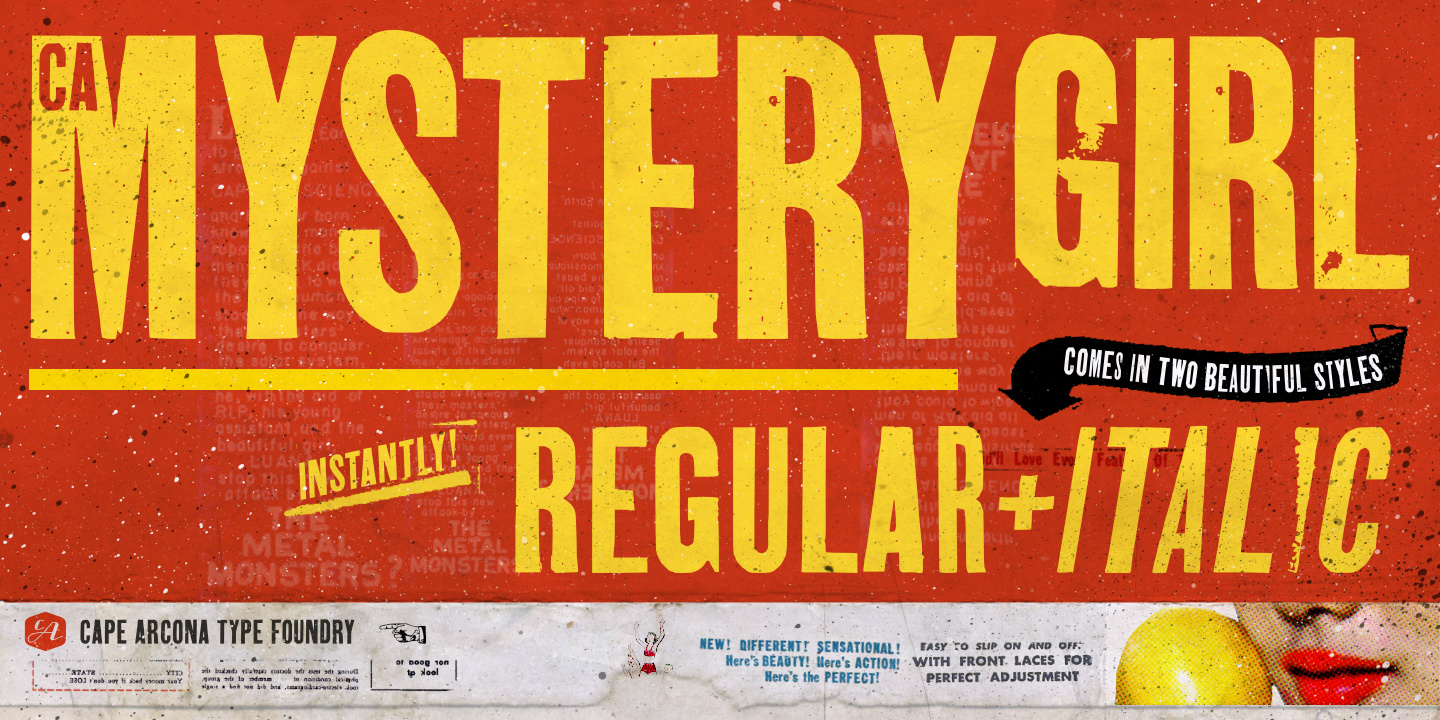
CA Mystery Girl Font Free Download is a playful and retro-inspired typeface that captures the charm and spirit of mid-century comic and advertising styles. Its quirky letterforms and dynamic curves make it an excellent choice for posters, album covers, branding, vintage-themed designs, and creative projects that seek a fun and nostalgic aesthetic.
The font’s lively structure ensures strong readability while delivering a unique and memorable character. CA Mystery Girl blends boldness with a sense of personality, making it ideal for projects that aim to stand out with a mix of vintage flair and modern creativity.
CA Mystery Girl is a standout choice for designers looking to infuse their work with retro charm, bold character, and playful sophistication.